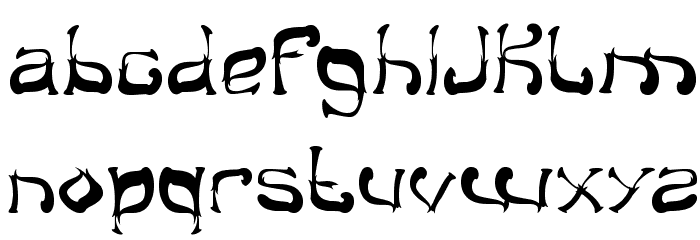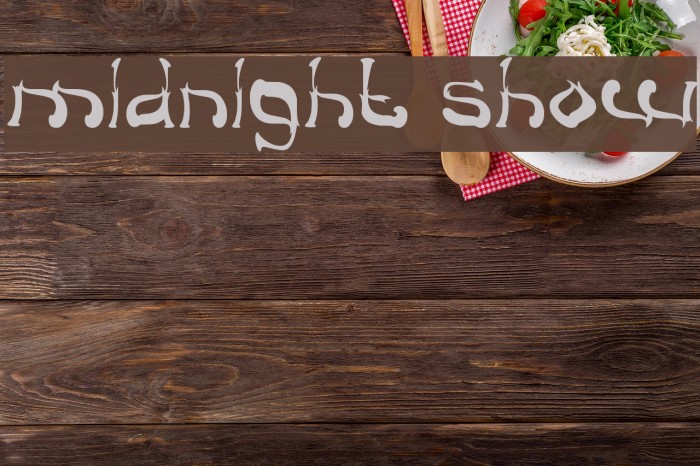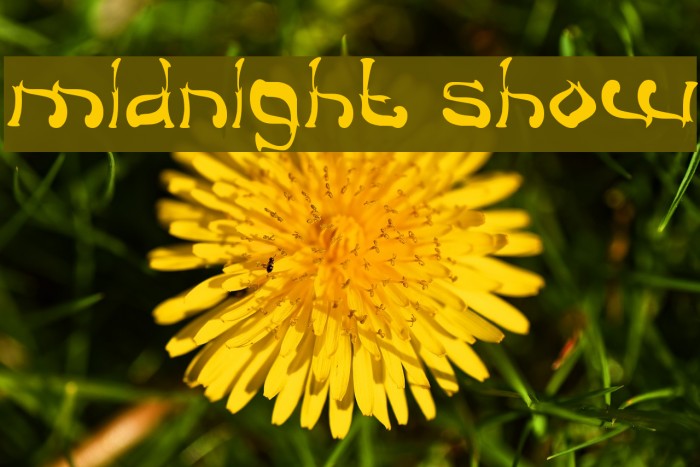
midnight show Font
This font features a unique and artistic design with an organic, flowing style. The characters exhibit a whimsical and slightly gothic appearance, with irregular, curving lines and varying stroke thicknesses. The overall look is reminiscent of hand-drawn calligraphy with a modern twist, making it stand out with its decorative flair. The uppercase and lowercase letters maintain a consistent style, while the numbers and special characters blend seamlessly into the design. This font's distinctive character shapes and artistic details make it suitable for creative and expressive projects.
An artistic, whimsical font with a gothic, hand-drawn style.
- Proposed Projects: Ideal for creative projects such as posters, album covers, or branding for artistic ventures.